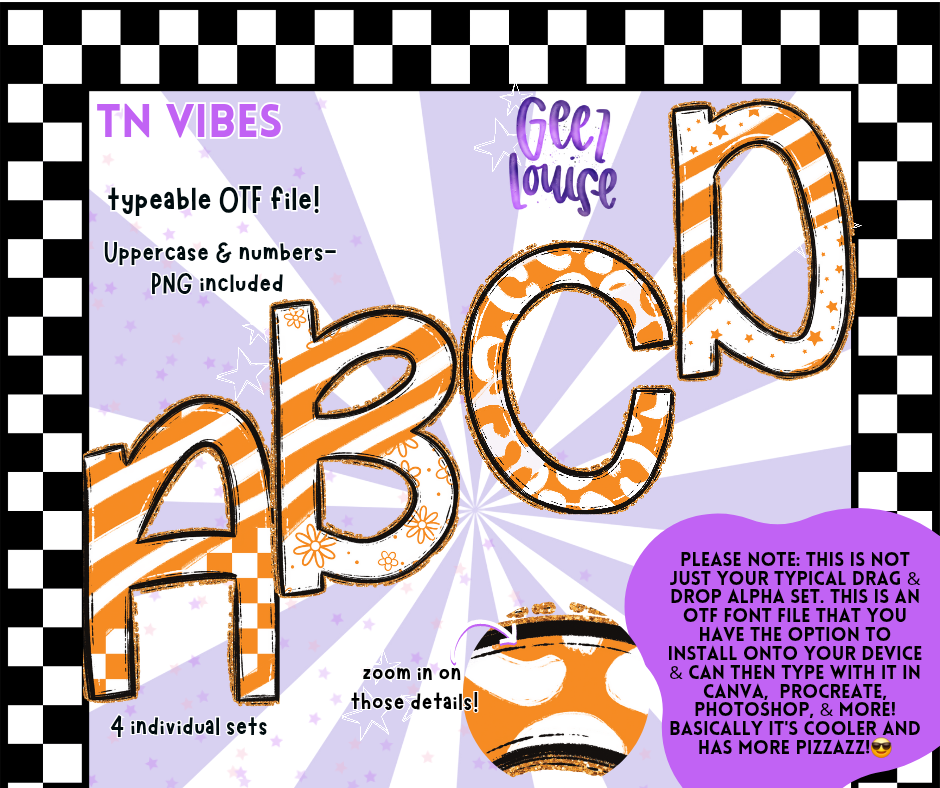
🧡 TN Vibes Alphabet Set – Typeable OTF Font + PNGs
Bring the heat of Tennessee flair to your designs with the TN Vibes Alphabet Set! This isn't your average alpha—it’s a full-on vibe. Packed with bold patterns, retro energy, and typeable magic, this set is perfect for creators who want their work to shout style.
Uppercase letters + numbers
4 distinct pattern sets for mix-and-match magic
This alpha set is more than just eye candy—it’s functional, versatile, and ready to party. Whether you're designing tees, social posts, invites, or digital art, TN Vibes adds that perfect pop of personality. Think bold, think nostalgic, think extra.